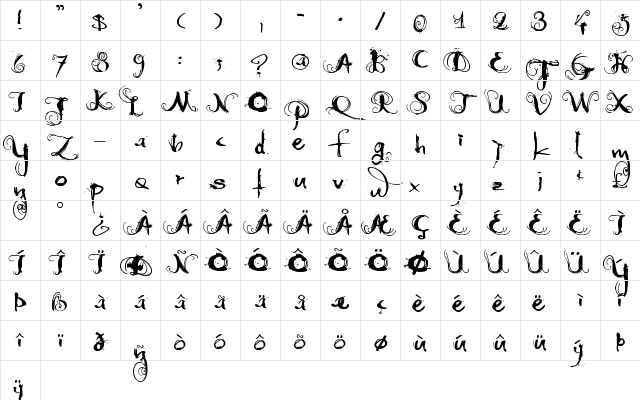
DK Moonlight Shadow Regular
Foundry: David Kerkhoff
Designer: David Kerkhoff
Design Context for DK Moonlight Shadow
DK Moonlight Shadow is built around its visual character rather than neutral utility - its distinctive forms are designed to make an impression at display sizes. Its slender proportions lend an understated elegance to any composition.
Font Pairing: Pair with a clean neutral sans-serif for body copy to let DK Moonlight Shadow's character lead without overwhelming the composition.
Pro Tip: Use DK Moonlight Shadow exclusively at display sizes - it was designed to be seen, not read at length. Let a neutral companion handle body copy.